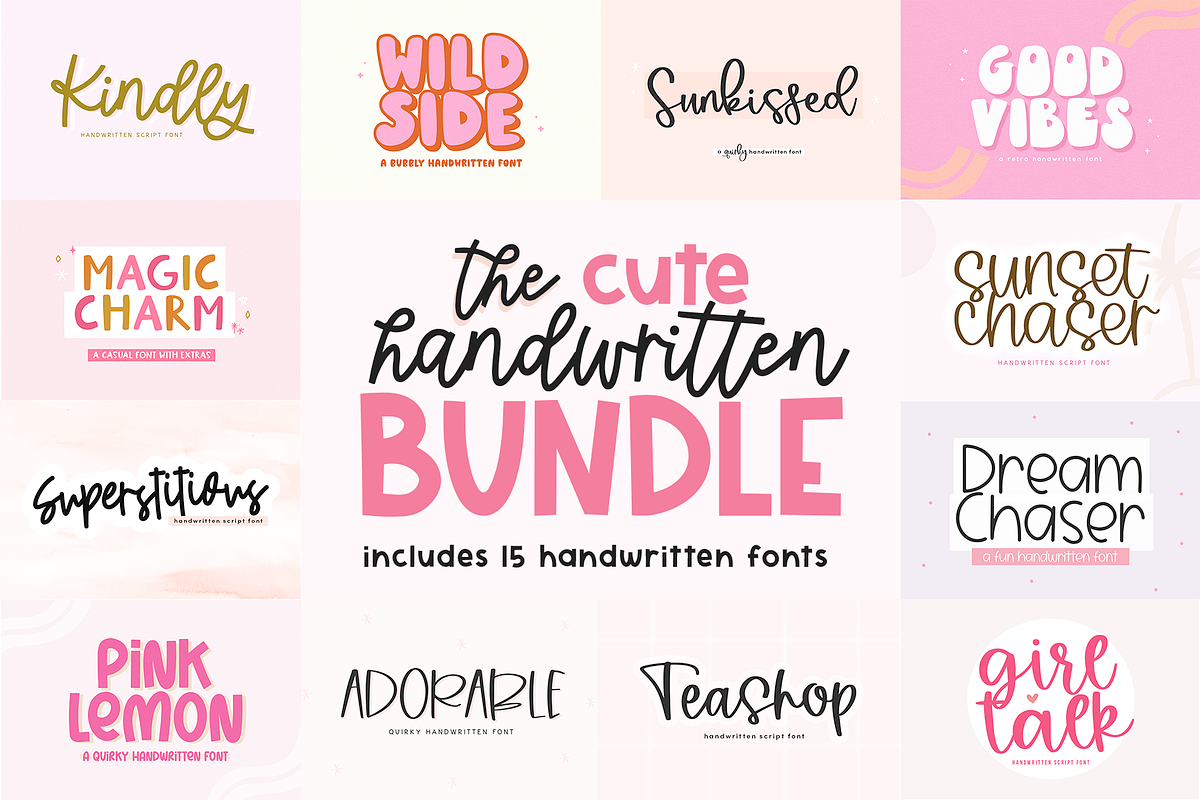
Cute Handwritten Font Bundle Free Download is a delightful collection of playful and charming handwritten typefaces designed to bring warmth, personality, and creativity to your projects. This bundle includes a variety of whimsical fonts perfect for greeting cards, kids’ products, DIY crafts, social media content, logos, and more.
Each font in the Cute Handwritten Font Bundle Free Download is carefully crafted to emulate the natural look of handwriting with a fun, approachable vibe. From bubbly letters to quirky curls and friendly strokes, this bundle gives you endless options to add joy and character to your work.
Whether you're designing for a baby shower, personal planner, lifestyle blog, or a cozy brand, this collection offers the perfect balance of cuteness and readability. It pairs wonderfully with sans-serifs or playful illustrations for an extra dose of charm.